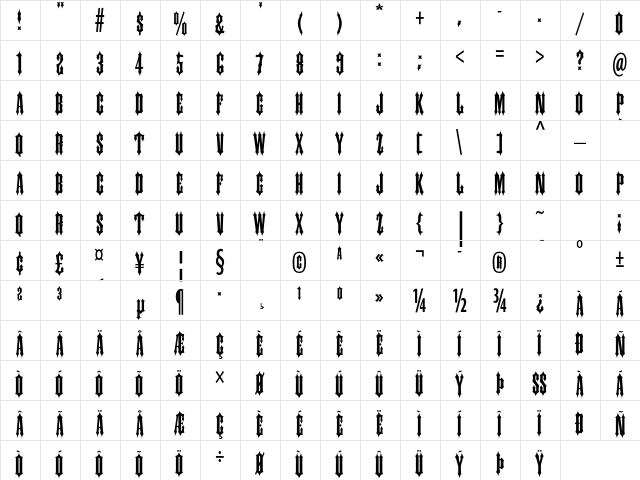
Ironwood Std Medium Font Preview
Ironwood Std Medium
Ironwood Std Medium Font Details
| Designer | Joy Redick |
Design Context for Ironwood Std Typeface
Ironwood Std echoes the hand-painted signage and woodblock typography of the American frontier, with a warm, rugged personality.
A natural fit for craft spirits, ranch branding, rodeo events, and Americana-inspired design work.
Font Pairing: Combine Ironwood Std with a simple slab or neutral sans — period-accurate companions reinforce the vintage feel without competing for attention.
Pro Tip: Use Ironwood Std for short, impactful bursts of text — it shines in poster headlines and product names rather than extended copy.